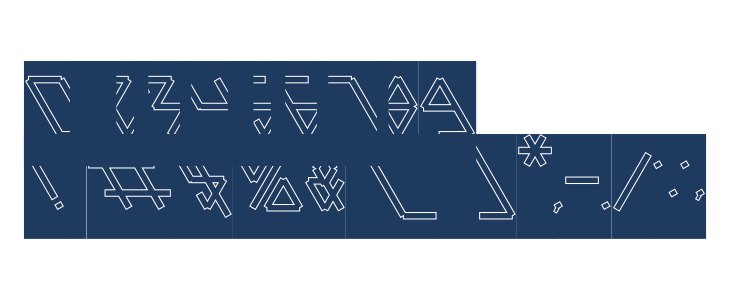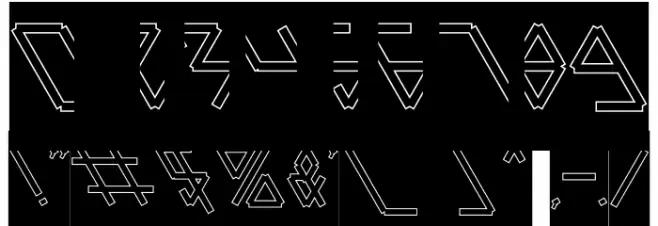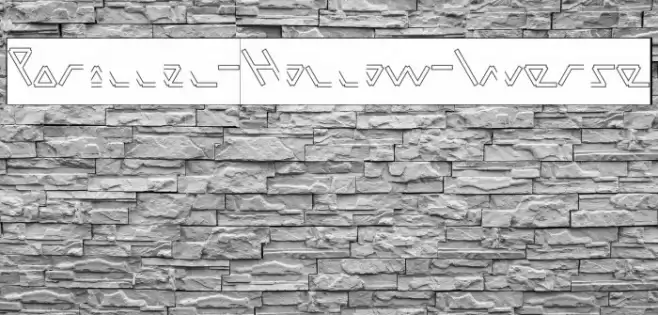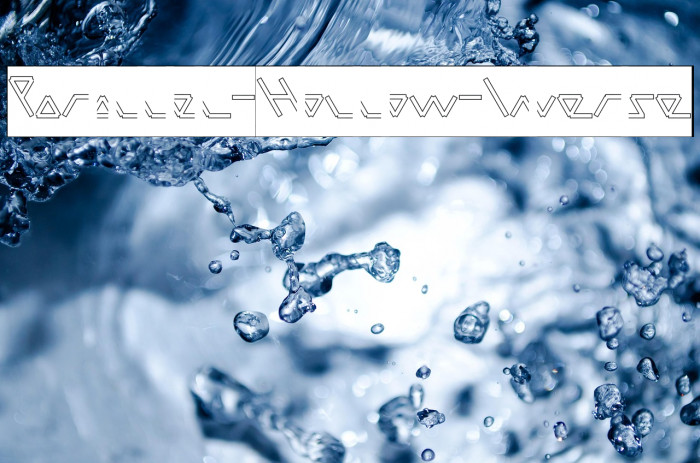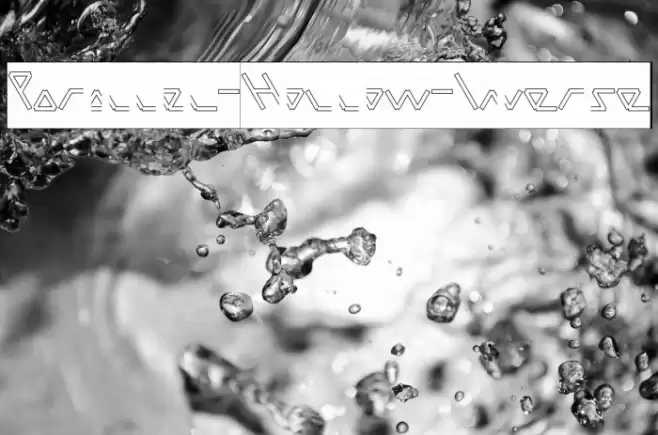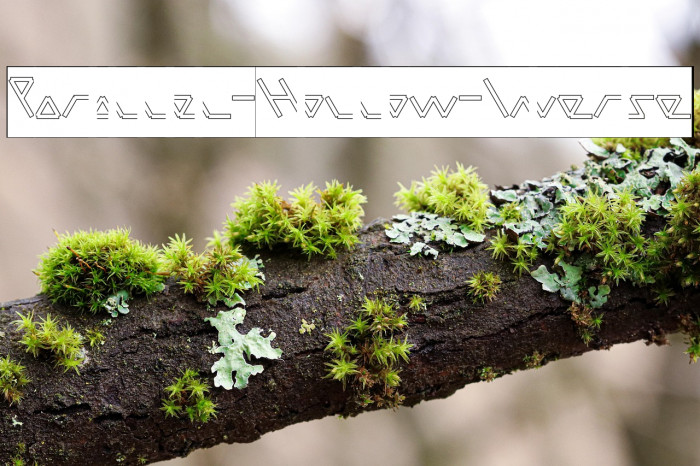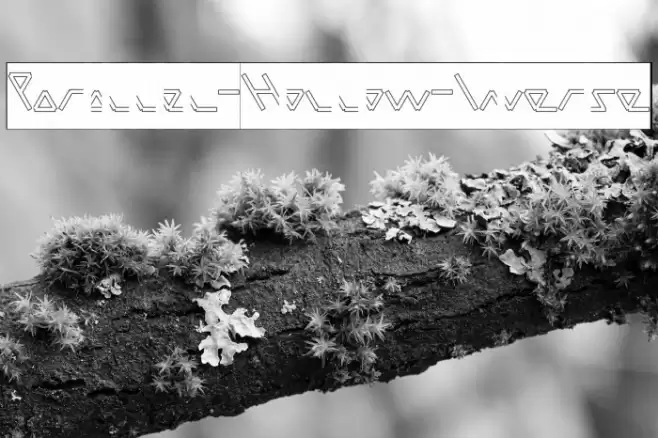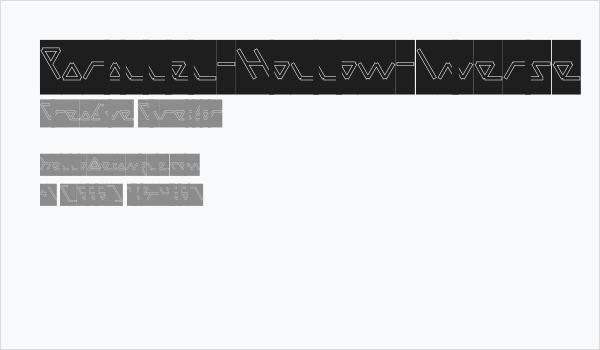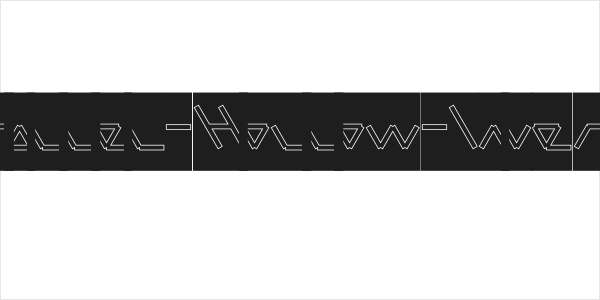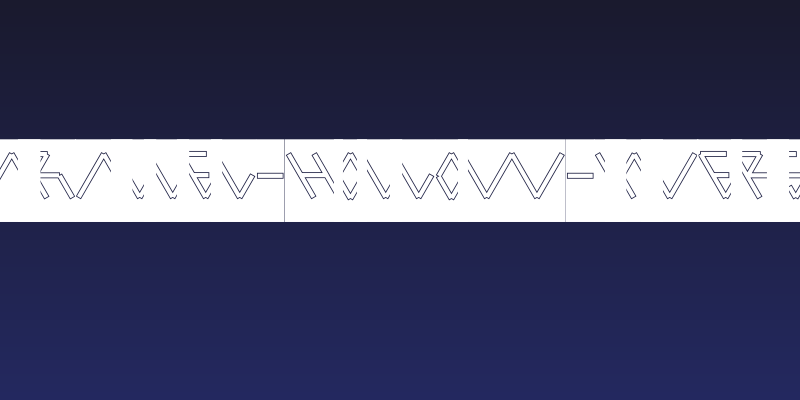
Parallel-Hollow-Inverse Font
Parallel-Hollow-Inverse Description
This font features a unique hollow design with parallel lines creating an inverse effect. The geometric shapes and angular forms give it a futuristic and digital appearance. Each character is constructed with precision, using sharp angles and straight lines that intersect to form a cohesive and visually striking typeface. The uppercase and lowercase letters maintain a consistent style, while the numbers and special characters complement the overall design. This font's distinct style makes it stand out, offering a modern and edgy look that is ideal for creative projects.
Use CaseLogos, Posters, Headlines
Proposed ProjectsIdeal for digital art, tech branding, video game graphics, and sci-fi themed projects.